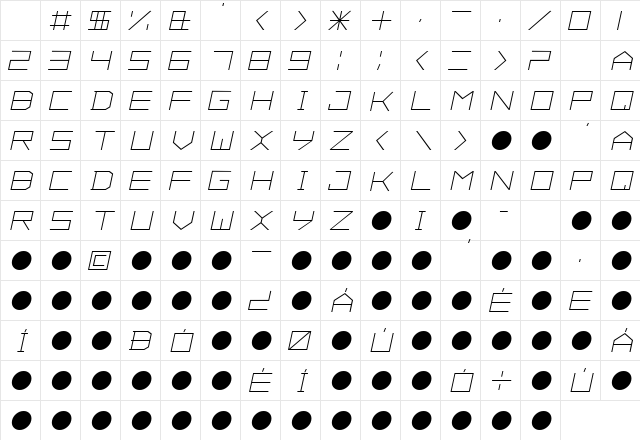
Complete ALPHA Italic glyph index. Displaying only characters natively supported by ALPHA Italic font.
ALPHA is a composed and adaptable typeface that performs quietly and consistently across a wide range of design contexts. The slanted form adds forward momentum and visual energy.